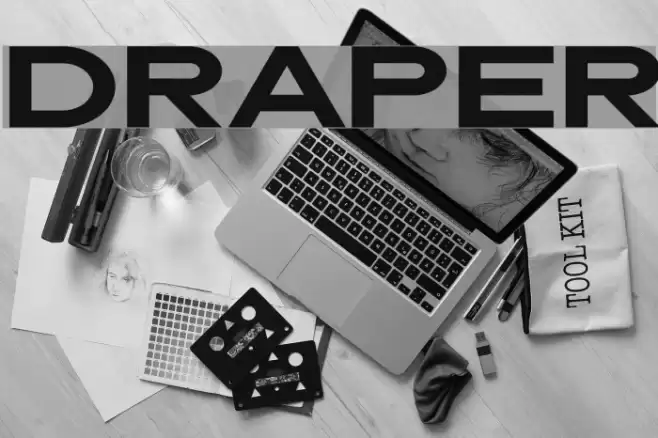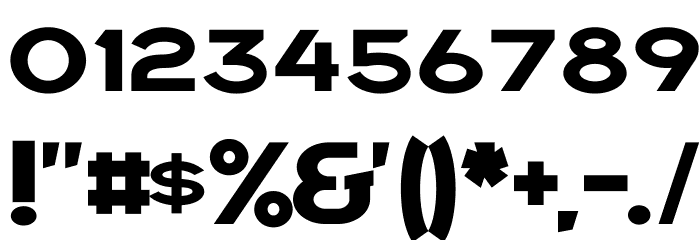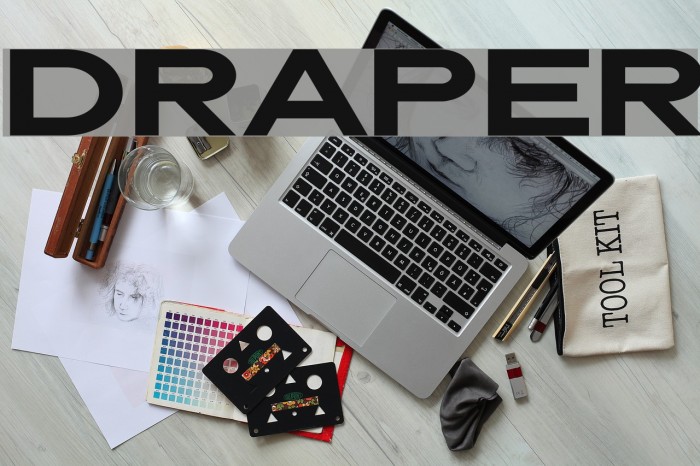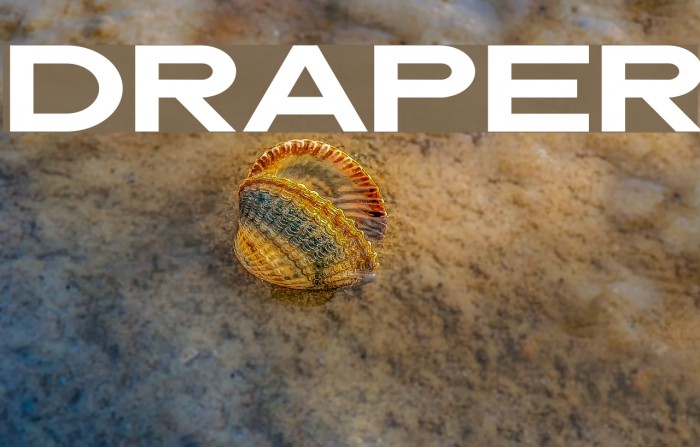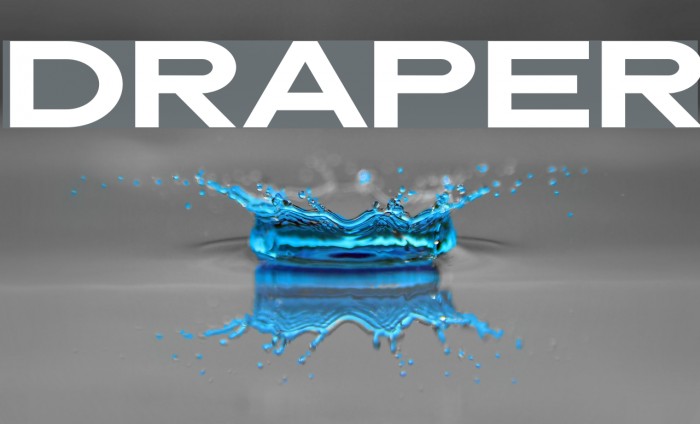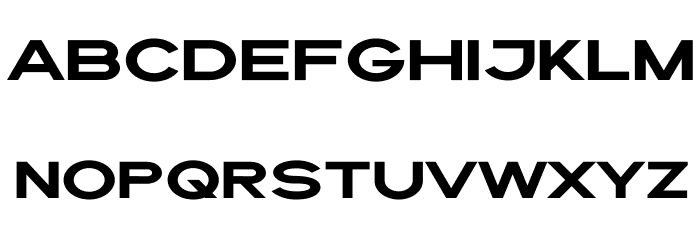
Draper Font
Draper Description
This font features a bold and modern sans-serif design with clean, geometric lines and a strong presence. The uppercase letters are uniform in height, creating a cohesive and structured appearance. The numerals are equally bold, maintaining the font's overall aesthetic. Special characters are designed with the same attention to detail, ensuring consistency across all glyphs. The font's simplicity and clarity make it highly legible, even at smaller sizes, while its boldness ensures it stands out in larger formats.
A bold, modern sans-serif font with geometric lines and strong presence from Uncategorized fonts.
- Proposed Projects: Ideal for branding, advertising, headlines, and digital media where a modern and impactful look is desired.
- Use Case: Headlines, Logos, Branding